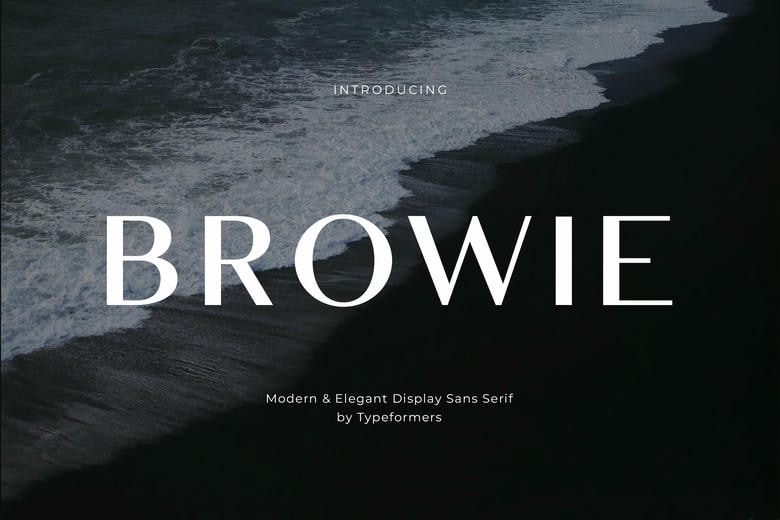
Browie Font
Browie is a Modern Sans Serif and simple font. This typeface is perfect for elegant logos, branding, travel promotions, layout magazines, beauty products, product packaging, quotes, or simply as a stylish text overlay onto any background image.
Browie Sans Serif Font